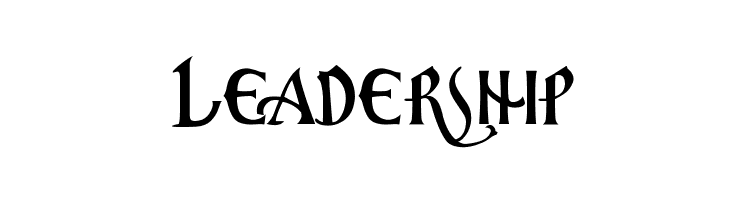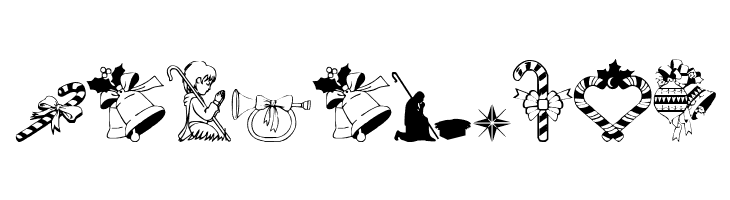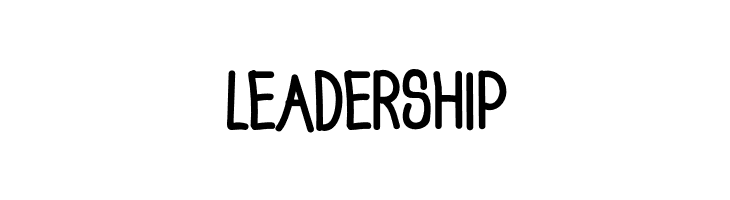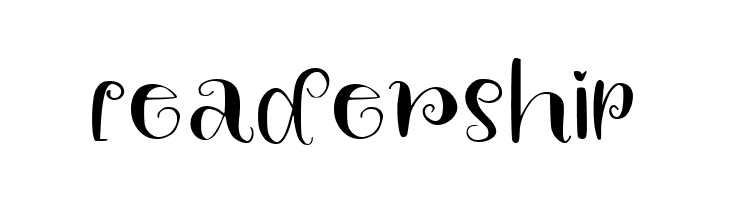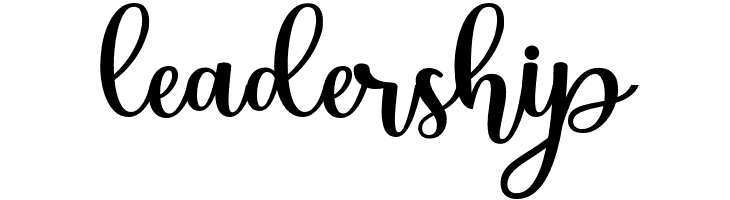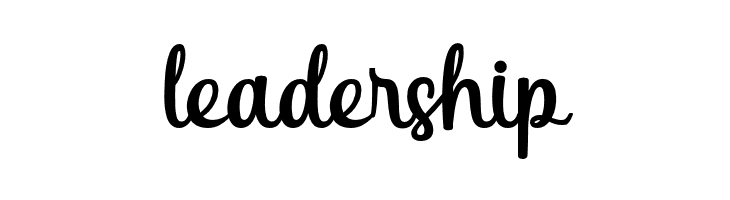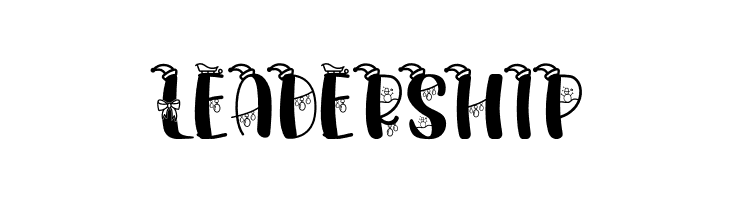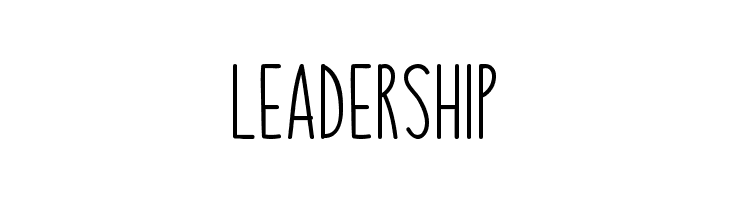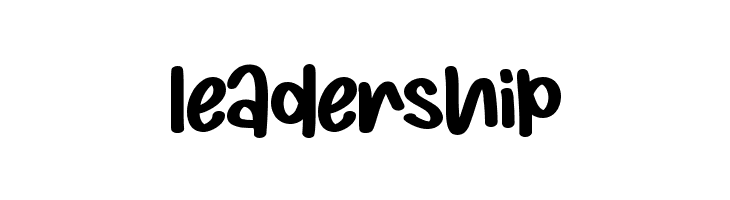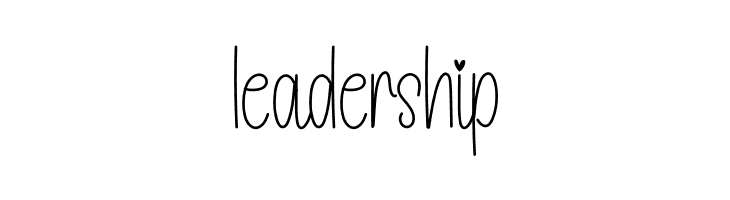
Playful handwritten font with tall, narrow letters.
A bold, playful font with a bubbly, rounded style.
A playful, bubbly font with decorative drips and rounded characters.
A festive, vintage script font with elegant, flowing curves.
Bold, brush-style script with a warm, handwritten look.
Playful handwritten font with bold, rounded characters.
A tall, playful sans-serif with rounded, hand-drawn qualities.
A whimsical script font with flowing letters and decorative flourishes.
A playful, hand-drawn style with tall, narrow letters and a whimsical feel.
A whimsical and elegant script font with decorative swirls and playful loops.
Whimsical, bold script with decorative loops and a festive feel.
A bold, decorative font with festive swirls and playful shapes.
Ornamental monogram font with heart and butterfly motifs.
A whimsical, handwritten script with tall, looping forms and festive flair.
Ornamental font with detailed Christmas wreath illustrations.
Expressive handwritten script with tall, narrow, and connected letters.
Whimsical Christmas-themed dingbat illustrations.
Decorative serif font with high contrast and festive, ornamental style.
A playful, festive font with bold, exaggerated strokes and a shadow effect.
Whimsical, handwritten script with tall, narrow characters.
A playful, festive font with tall, narrow letters and rounded edges.
A festive, decorative font with Christmas-themed embellishments on each character.
A playful and whimsical font with bold, curvy strokes and a festive appearance.
A playful, whimsical script font with a handwritten style.
Playful handwritten font with tall, narrow letters.
A playful, rounded font with a festive and cheerful style.
A whimsical and festive script font with elegant, flowing cursive letters.
An elegant script font with ornate swashes and a calligraphic style.
A playful, Christmas-themed decorative font with festive embellishments.